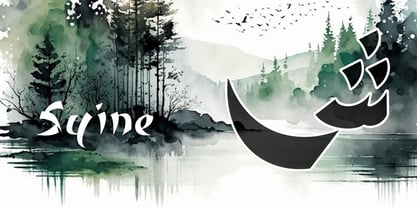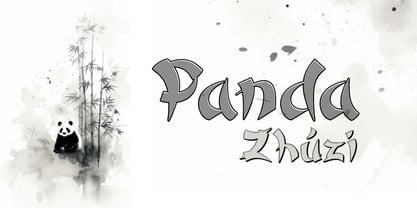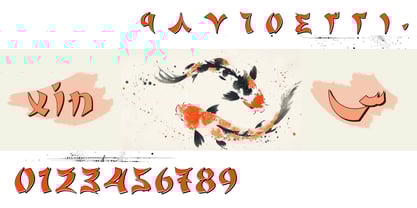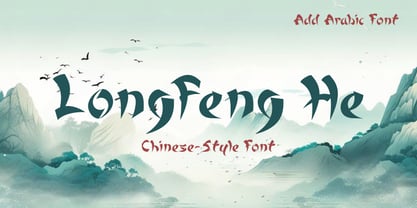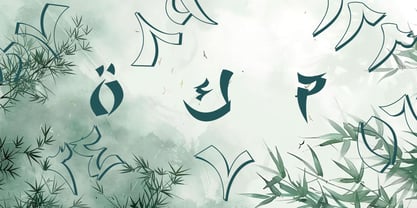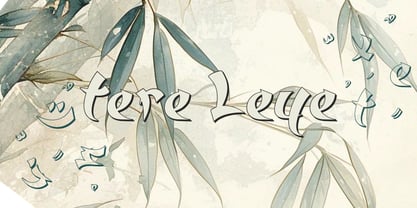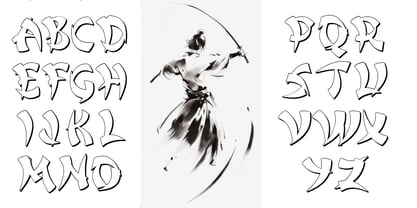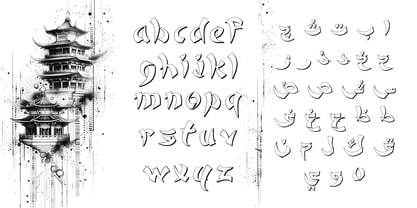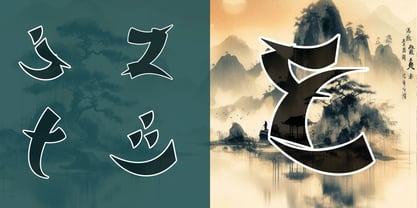
Longfeng He
by Kaidosan
The Longfeng He Font Family was designed by Muhammad Ansari and published by Kaidosan. Longfeng He contains 4 styles and family package options.
Longfeng He is an artistic typeface that blends traditional Chinese calligraphic style with subtle Arabic script influences, creating a unique and culturally rich visual identity. Designed to convey elegance and expressive energy, this font is ideal for ethnic-themed projects, premium branding, editorial design, and creative works that seek a refined, culturally infused aesthetic.
The font comes in three distinctive styles:
• Regular – A classic brush-inspired design with strong, flowing strokes.
• Outline – A lighter, modern contour version for clean and open compositions.
• Shadow – A dimensional variant that adds depth and visual impact.
Longfeng He also includes elegant and expressive stylistic alternates, offering versatility and creative freedom in typographic compositions.